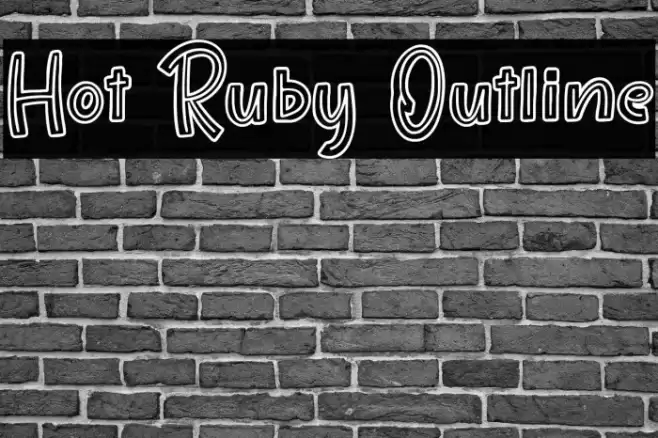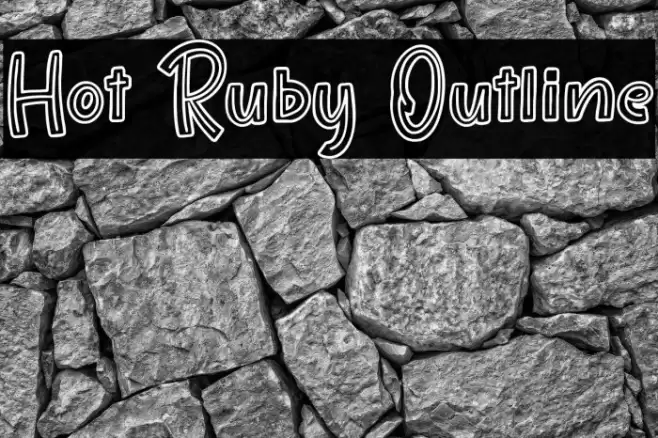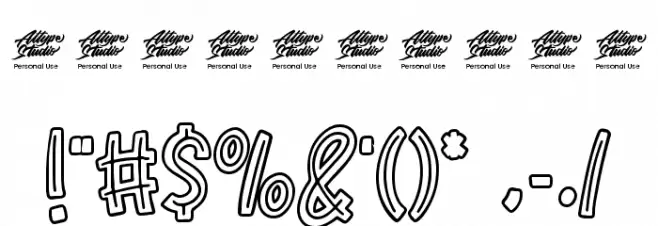
Hot Ruby Outline Font
Hot Ruby Outline Description
This font features a playful and bold outline style that gives each character a distinct and lively appearance. The uppercase and lowercase letters are designed with a consistent outline that adds a sense of depth and dimension. The characters are rounded and slightly irregular, contributing to a casual and fun aesthetic. The numbers and special characters maintain the same outlined style, ensuring visual consistency across all elements. This font is ideal for projects that require a touch of whimsy and creativity, making it suitable for children's books, playful branding, or eye-catching headlines.
A playful, bold outline font with a lively and casual aesthetic from Regular fonts.
- Font: Hot Ruby Outline
- Proposed Projects: Children's books, playful branding, eye-catching headlines, posters, and creative invitations.
- Overall Style: Playful, Casual, Fun